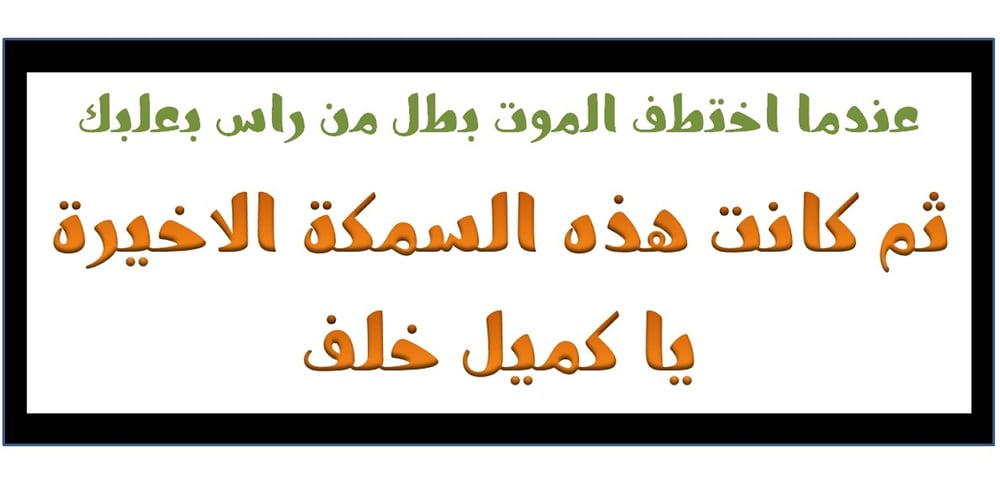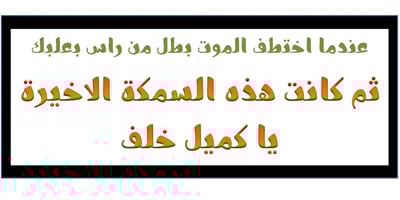
Camille Font Family was designed by Saad D. Abulhab and published by Arabetics. Camille contains 4 styles and family package options. Camille was designed with exaggerated emphasis on letter vertical characteristic, by virtually eliminating the typical Arabic horizontal line look. This font glyph weights and look and feel are heavily influenced by early Kufic Quranic calligraphy style. Camille supports all Arabetic scripts covered by Unicode 6.1, and the latest Arabic Supplement and Extended-A Unicode blocks, including support for Quranic texts. This font family includes two letter spacing flavors: isolated for small text and overlapped for large or display text. The two spacing flavors have one weight each with a normal and a left-slanted Italic version. The script design of this font family follows the Arabetics Mutamathil Taqlidi style utilizing varying x-heights. The Mutamathil Taqlidi type style uses one glyph per every basic Arabic Unicode character or letter, as defined by the Unicode Standards, and one additional final form glyph, for each freely-connecting letter of the Arabic cursive text. Camille includes the required Lam-Alif ligatures in addition to all vowel diacritic ligatures. Soft-vowel diacritic marks (harakat) are selectively positioned with most of them appearing on similar high and low levels—top left corner—, to clearly distinguish them from the letters. Tatweel is a zero-width glyph.